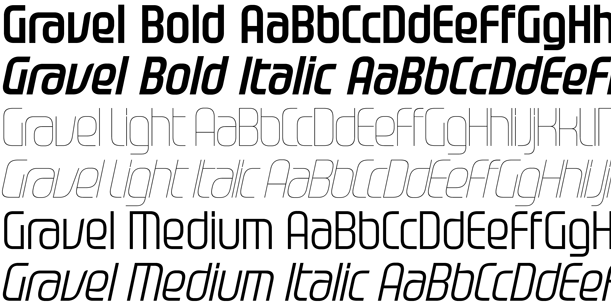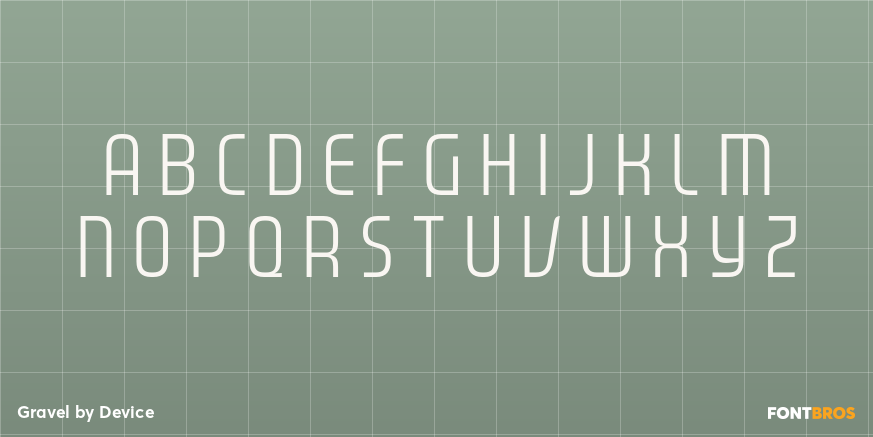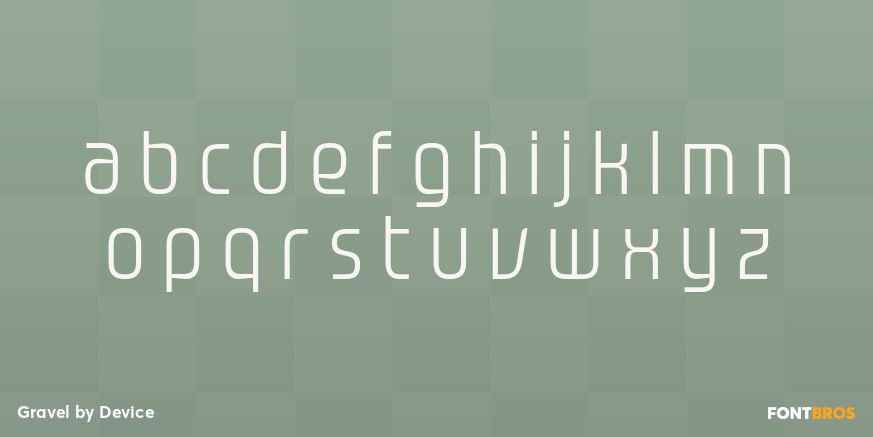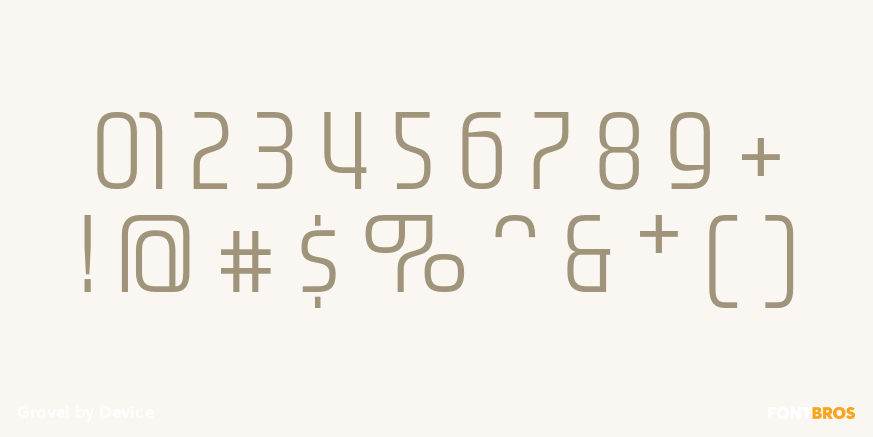
Gravel
Font Family by Device Fonts
Gravel is a six-style sans serif family from Device with a distinctly retro-futuristic attitude. Its look taps into groovy late-1960s and 1970s references, then carries that energy into a crisp new wave feel, making it a strong choice when you want type that feels bold, stylish, and a little offbeat.
With Light, Medium, and Bold weights plus matching italics, the family gives you room to build contrast while keeping a consistent voice. It suits display-driven work especially well, from posters and album-inspired graphics to branding, packaging, apparel, and social visuals that benefit from a futuristic or vintage-pop edge.
If your project calls for a sans serif that feels more expressive than neutral, this family brings personality without losing structure. The range of styles makes it easy to move between emphasis, motion, and hierarchy while holding onto its unmistakably era-inflected character.